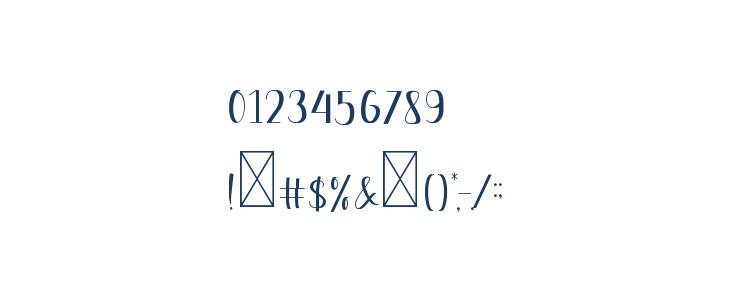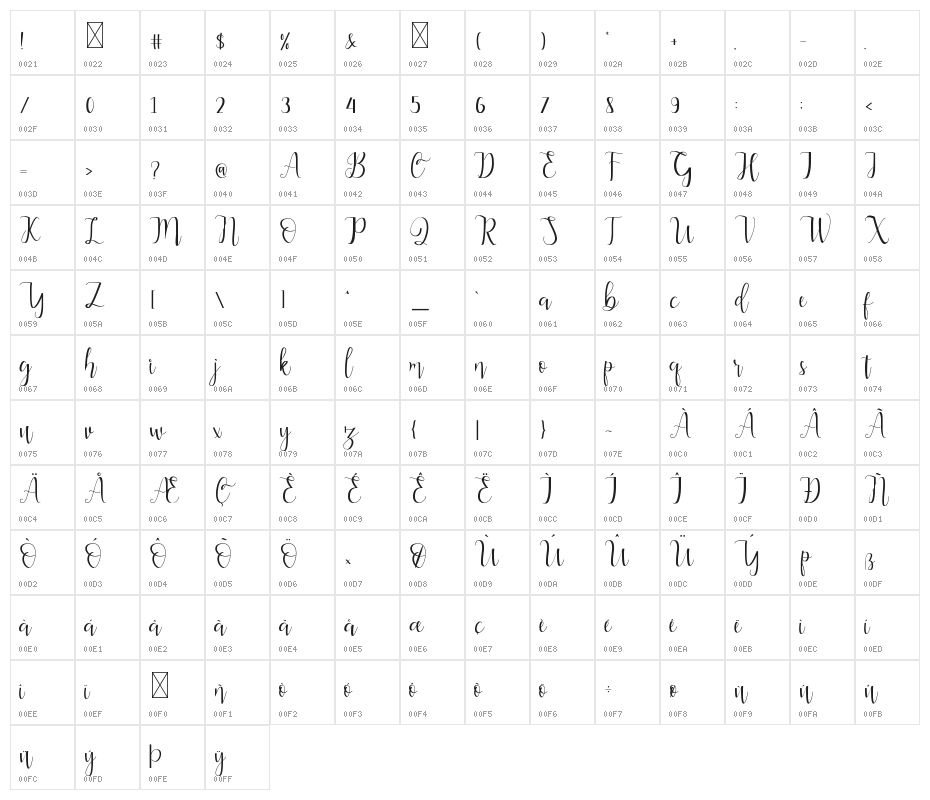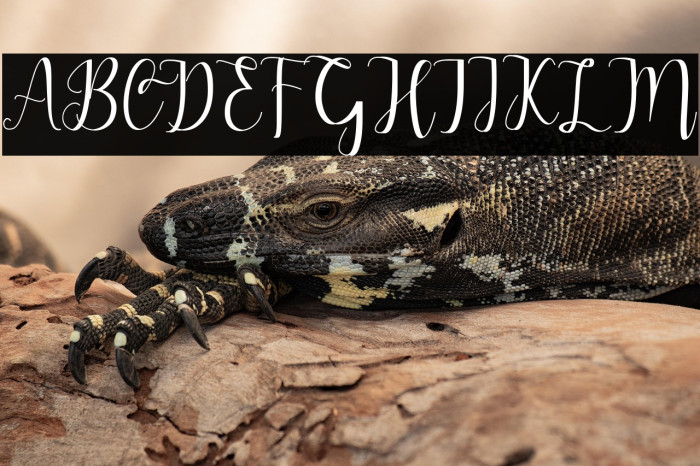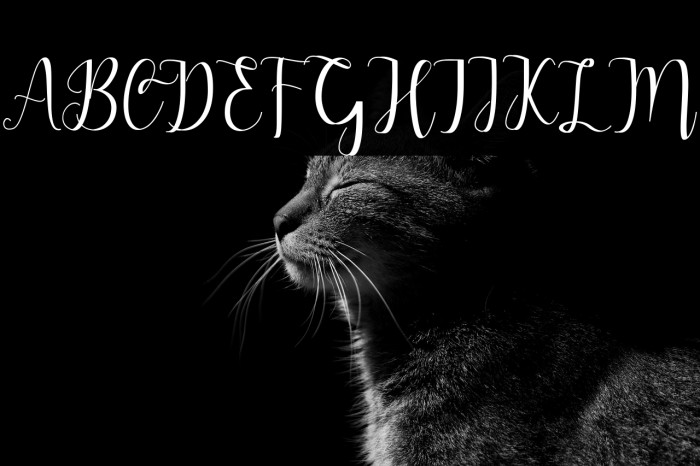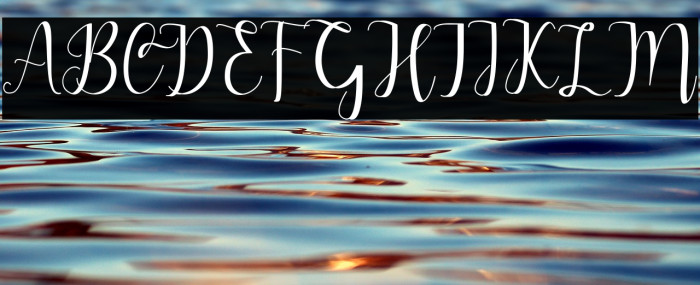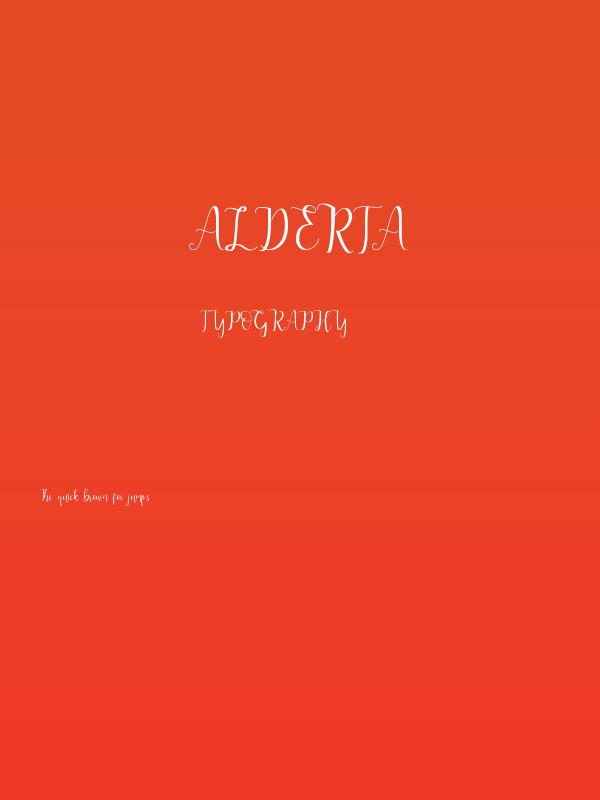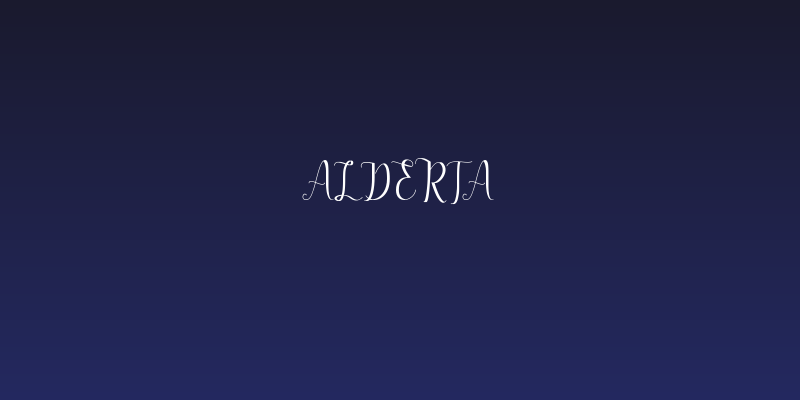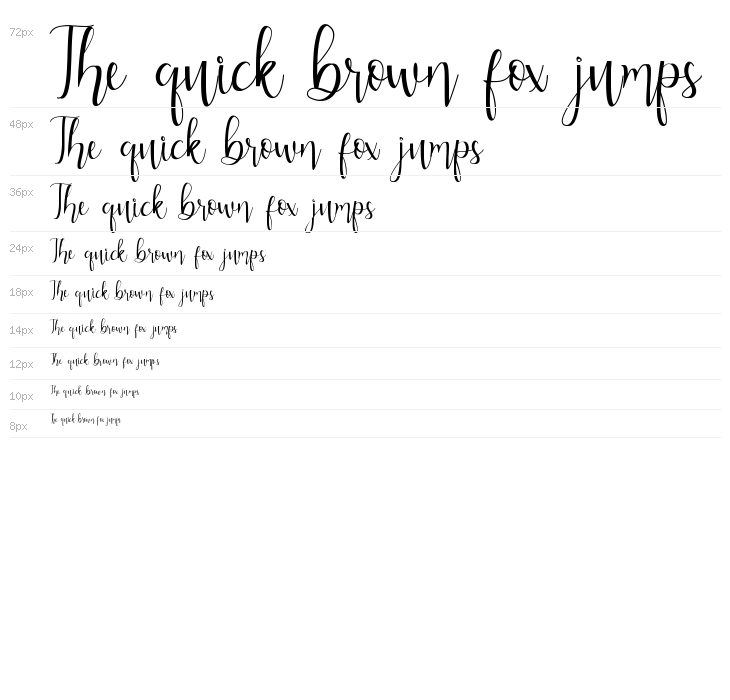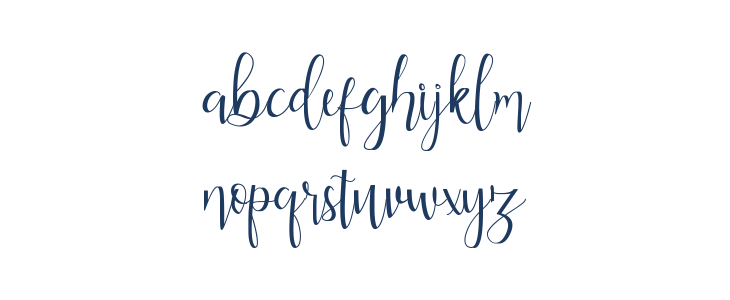
Alderta Font
Alderta Description
This font features an elegant and flowing script style, characterized by its graceful curves and loops. The uppercase letters are tall and slender, with a distinctive flair that adds a touch of sophistication. The lowercase letters maintain a consistent flow, complementing the uppercase with their smooth, connected strokes. The numerals are clear and legible, designed to match the overall aesthetic of the script. Special characters are thoughtfully integrated, maintaining the font's cohesive style. This font exudes a sense of elegance and charm, making it suitable for a variety of creative applications.
| Overall Style | Elegant, Decorative |
| Proposed Projects | Ideal for wedding invitations, elegant branding, greeting cards, and decorative signage. |